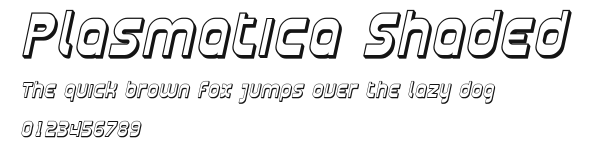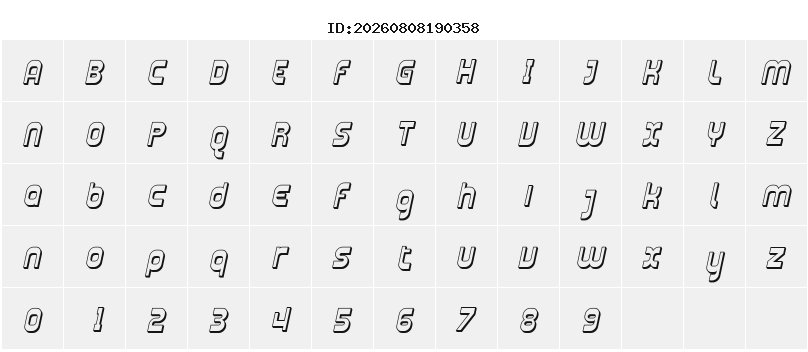
Plasmatica Shaded Preview
• Font Name: Plasmatica Shaded
• Designer: Derek Vogelpohl
About Plasmatica Shaded.ttf
Plasmatica Shaded.ttf is a modern, elegant sans-serif font designed for ultimate readability and visual harmony. Perfect for branding, headlines, web design, and print materials.